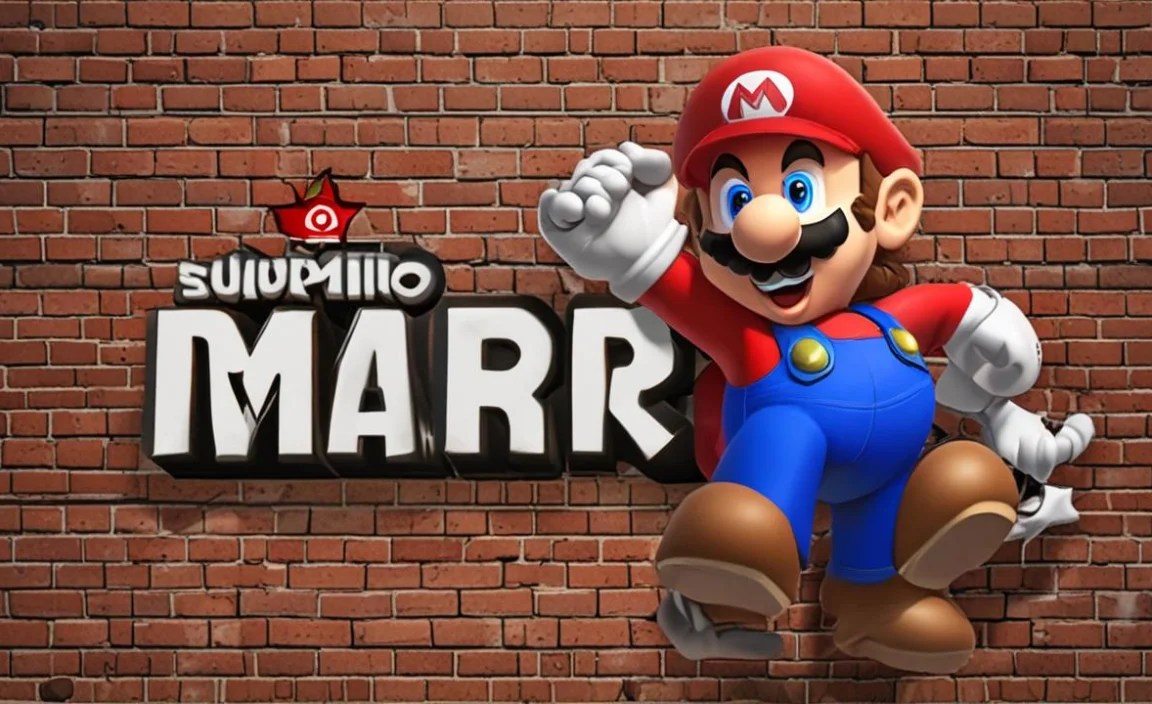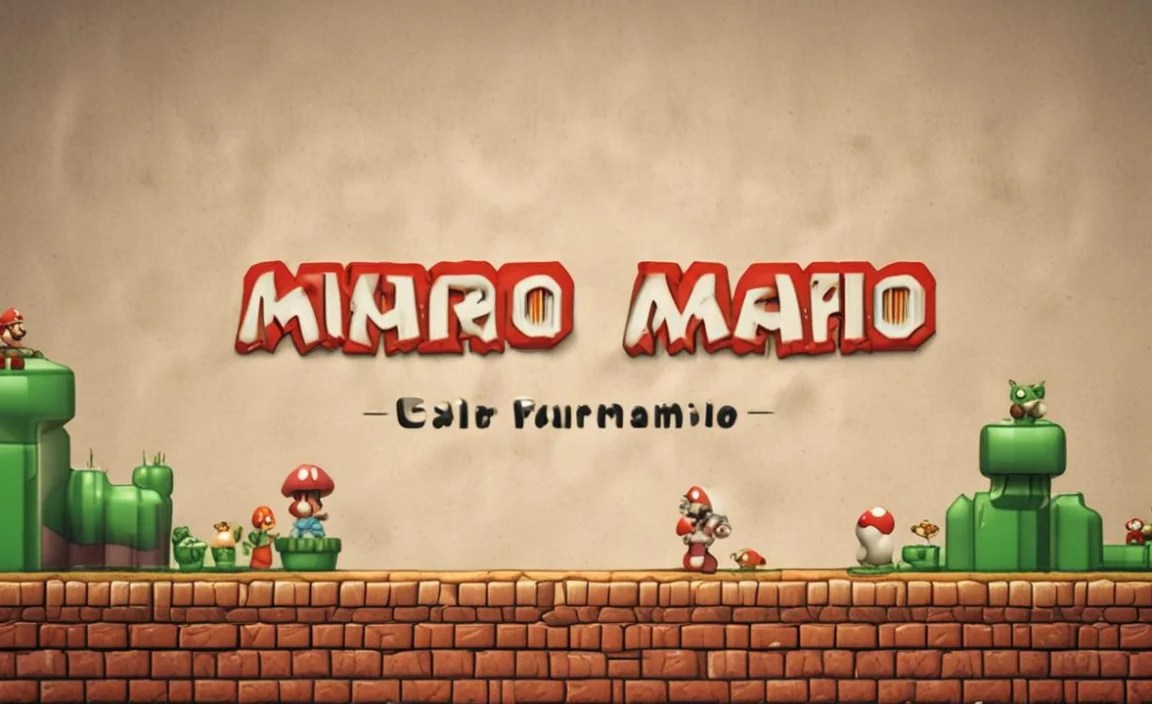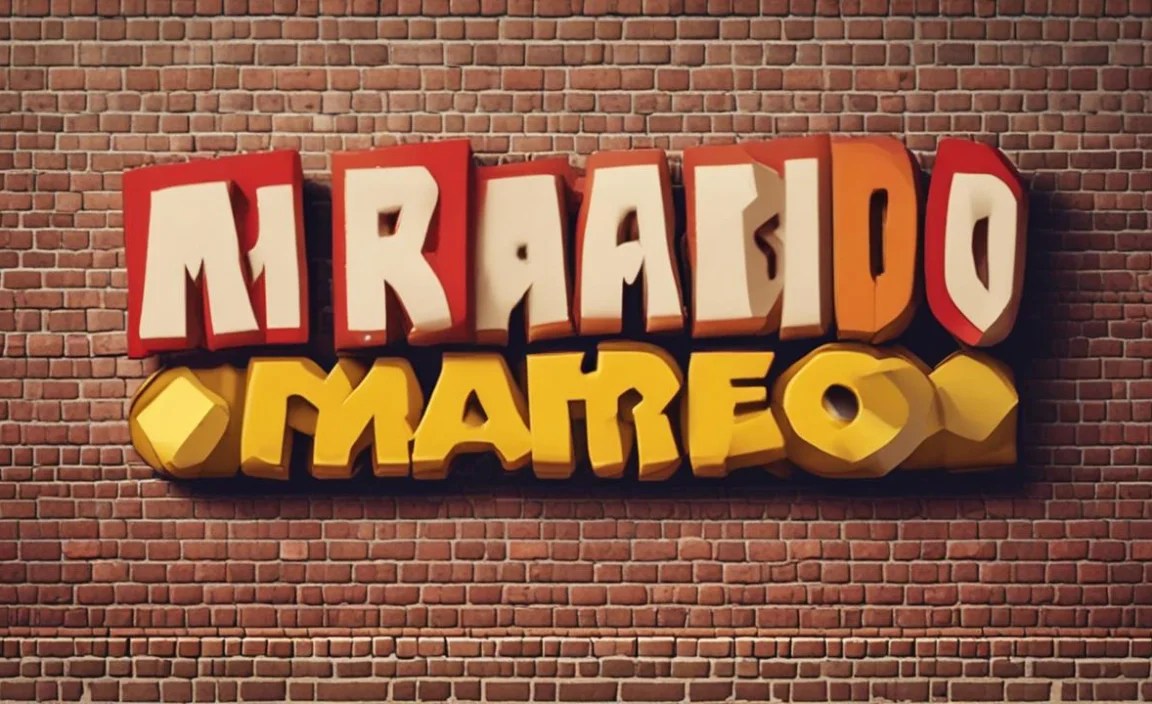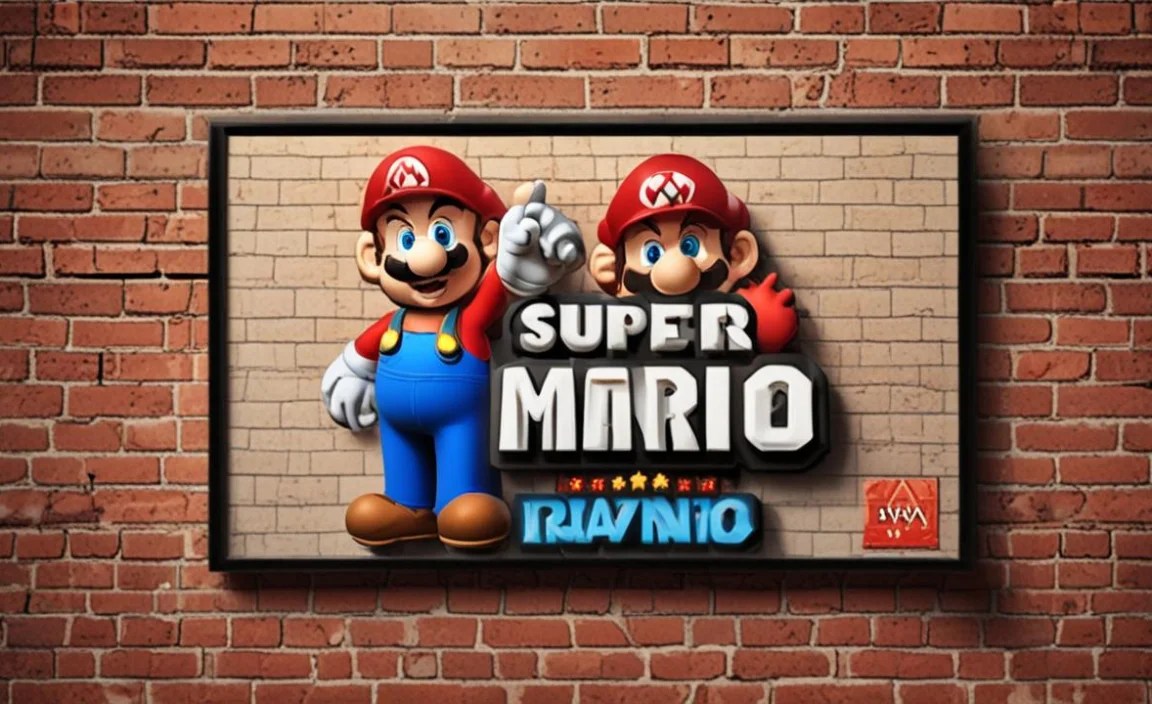
The Super Mario Font, inspired by Nintendo’s iconic Super Mario franchise, captures the vibrant, adventurous essence of Mario’s adventures in the Mushroom Kingdom.
Designed for fans and creative projects, this font echoes the playful charm of the Super Mario logo. The font most closely resembling the Super Mario logo is Gamtex, crafted by FG Studios.
| Name | Gamtex |
| Style | Decorative, Bold |
| Designer | FG Studios |
| Type | Retro-inspired Display Font |
Super Mario Font Family Includes
The Gamtex font does not have an extended family but serves as a stand-alone typeface for decorative purposes.
Where Super Mario Font is In Use
- Video Game Logos: Used for Super Mario Bros., Super Mario RPG, and other themed designs.
- Merchandise: Printed on products like T-shirts, mugs, and gifts.
- Fan Art: Widely used in creative projects to mimic the Super Mario style.
- Event Banners: Perfect for Mario-themed parties or gaming events.
- Digital Content: Ideal for YouTube thumbnails, social media posts, and website headers.
The Super Mario Font is a vibrant and playful typeface inspired by Nintendo’s beloved Super Mario series. Perfect for logos, fan art, and creative designs, it brings a nostalgic charm to any project while capturing the adventurous spirit of the Mushroom Kingdom. Whether for personal or professional use, it’s a great choice for adding a touch of Mario magic to your creations.
2.Does The Font Support Lowercase Letters?
No, it’s an all-caps font designed for decorative use.
3.What Font Size Works Best For The Super Mario Font?
Larger sizes (36pt and above) ensure readability and capture its bold style.
6.What Inspired The Super Mario Font?
It was inspired by Nintendo’s Super Mario game series, combining vibrant colors and playful lettering.
7.Are There Western Or Serif Font Versions Of The Super Mario Font?
No direct Western or Serif versions exist, but you can find decorative fonts with similar vibes.